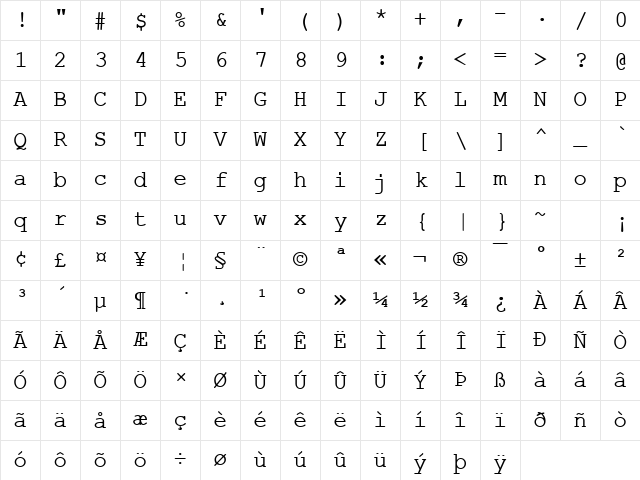
Final Draft Heavy Regular
Design Context for Final Draft Heavy
Final Draft Heavy is a composed and adaptable typeface that performs quietly and consistently across a wide range of design contexts.